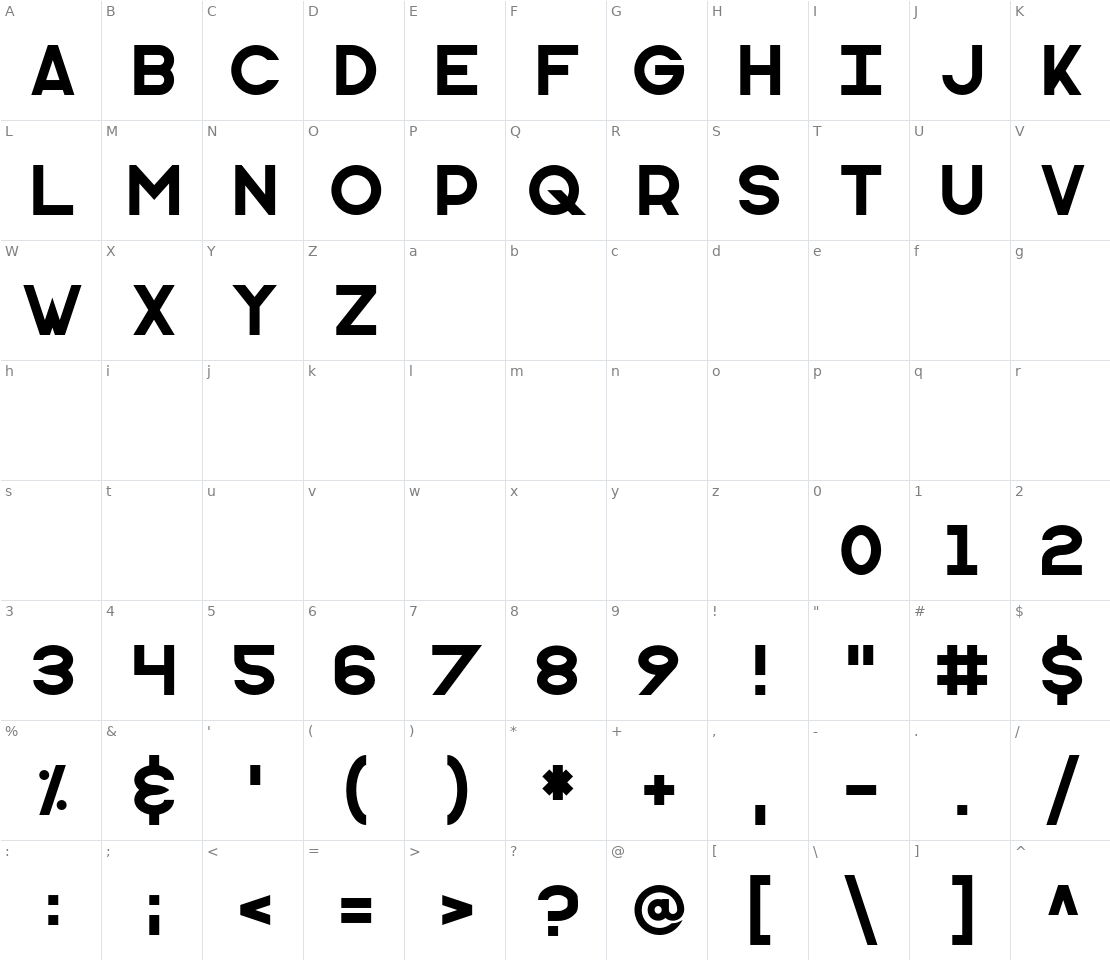
Monometric
by Will Stewart
Monometric is a bold geometric display face from Will Stewart with clean, rounded letterforms and an uppercase-only character set that keeps things direct and punchy. The shapes are simple and confident, with even stroke weights and smooth curves that give it a modern, approachable solidity. Built for headlines, logos, and branding where you want geometric precision without sharp edges.